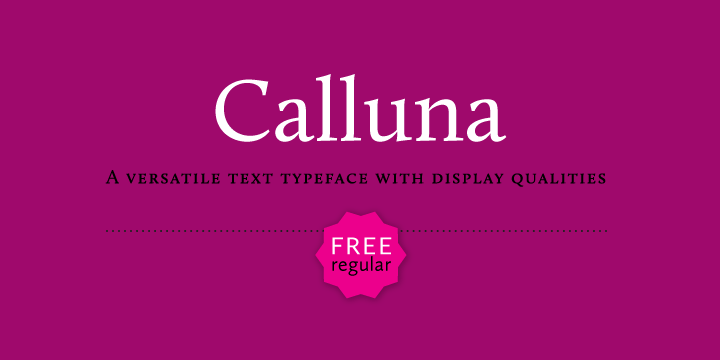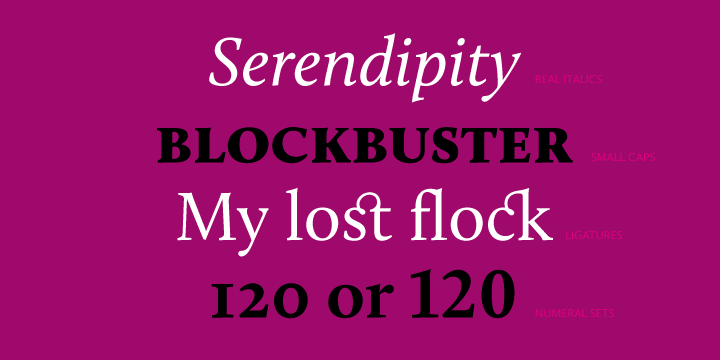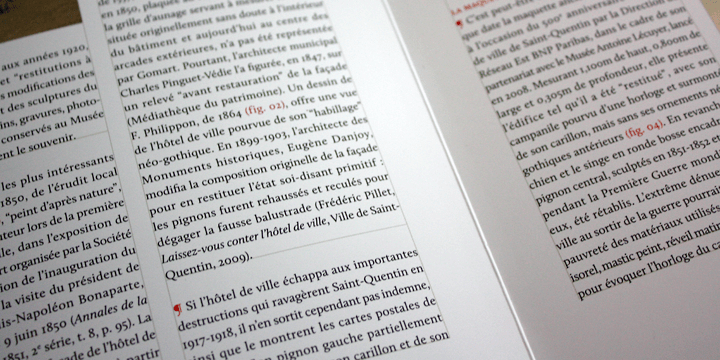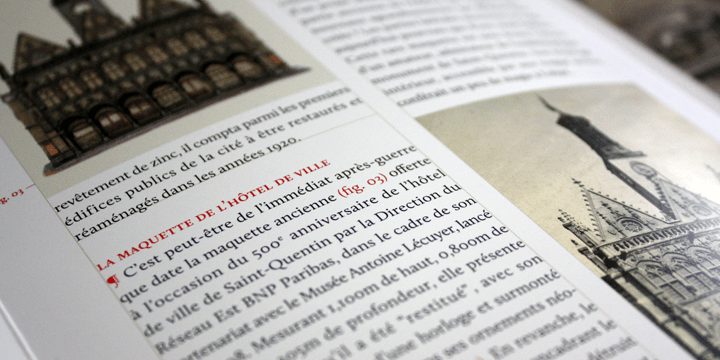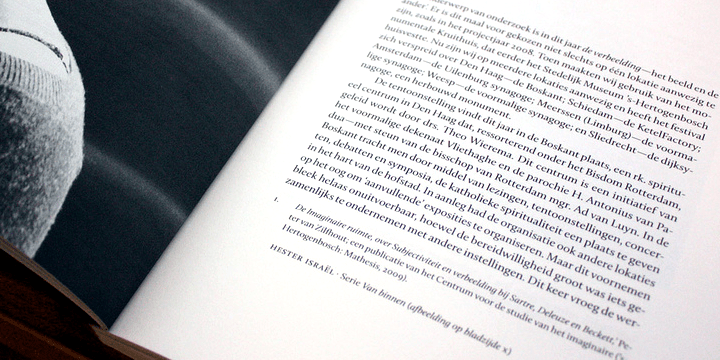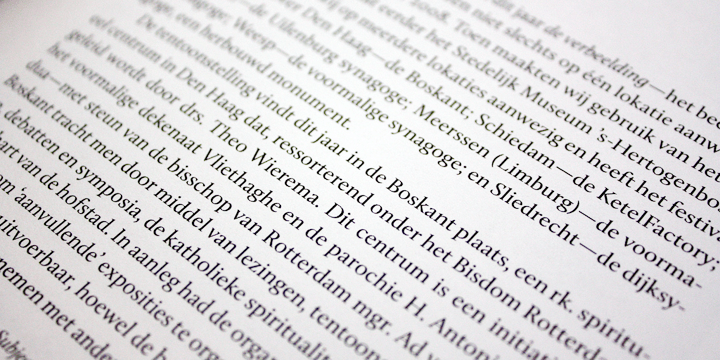
Calluna
Buy NowWhen I needed a little break from designing Museo I was just fiddling around a bit to see if maybe a full slab serif would be something to have a look at. The first thing I did, of course, was to put slab serifs on the stems of Museo. When I did, something nice happened. Slab-serifs with a direction! I ended up using the idea for something I always wanted to do: making a rather serious text face. The goal was to make a text font, but one with enough interesting details. In the end it all came down to finding the balance in a typeface between robustness to function as a text face text and having enough refinement to look good as display font.